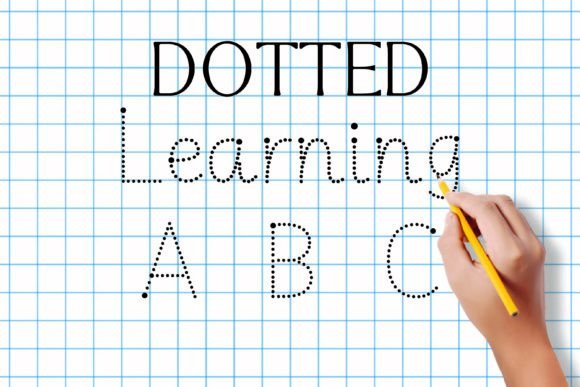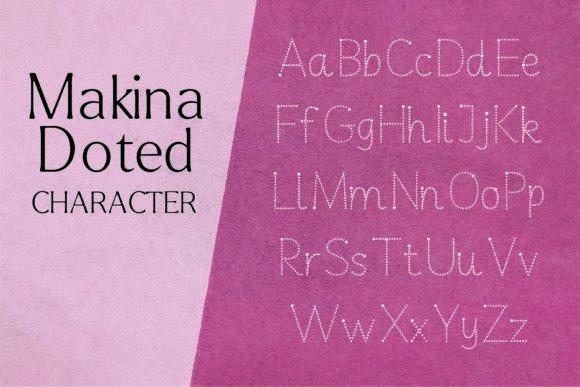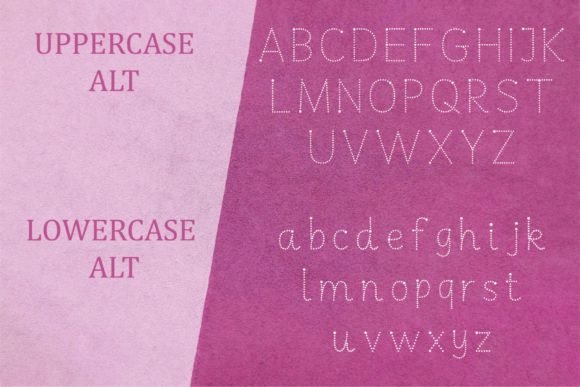
Introduction to Makina Doted Font Font
Fonts play a crucial role in design, and the Makina Doted Font font is a typeface that brings both character and versatility to any project. Whether you’re working on a branding project, a website, or a print design, the Makina Doted Font font offers a unique style that can elevate your work.
Makina Doted helps you create thousands of worksheets.
It is a great learning resource for those who want to learn or teach the print alphabet enjoyably and interactively Whatever the topic, this font will be a wonderful asset to your font library, as it has the potential to enhance any creation.
Key Features of Makina Doted Font Font
Why Choose Makina Doted Font Font?
The Makina Doted Font font is more than just a typeface – it’s a design tool that helps you communicate your message with style and clarity. Its unique character set and versatile design make it suitable for a wide range of applications, from elegant invitations to bold headlines.
With its carefully crafted letterforms and balanced proportions, the Makina Doted Font font ensures readability and visual appeal across all mediums.
What makes Makina Doted Font font special?
The Makina Doted Font font stands out with its unique design, exceptional readability, and versatility across various design applications.